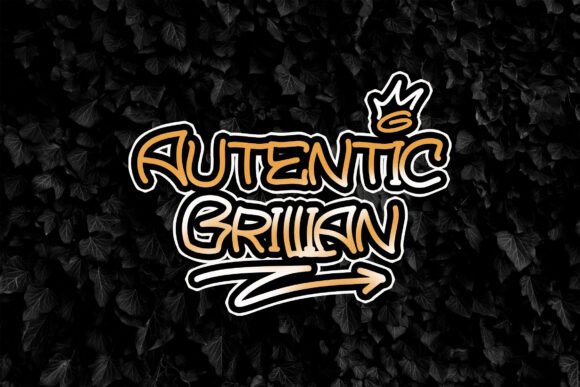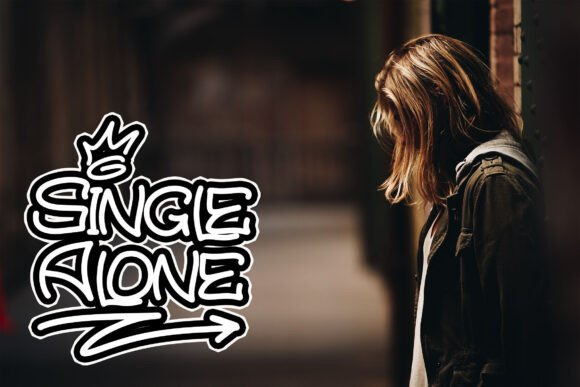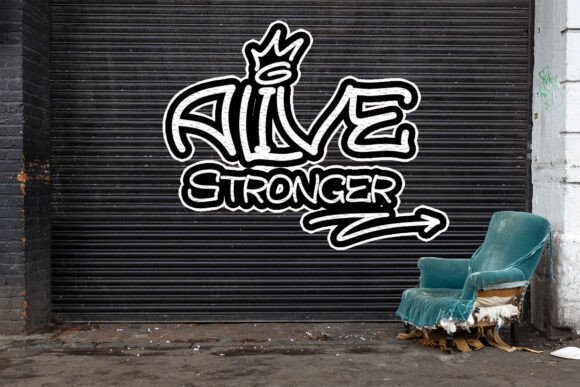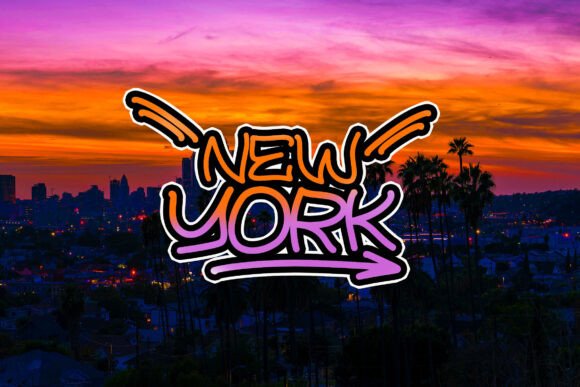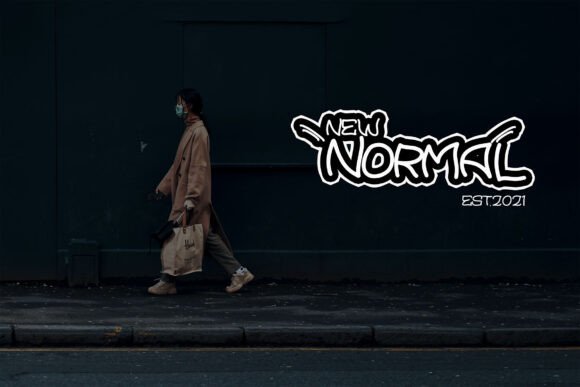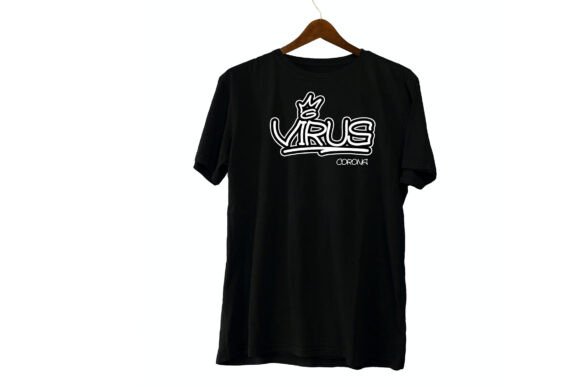
Introducing Amorad Font: The Ultimate Urban Edge for Your Designs
In the world of typography, fonts play a crucial role in conveying the tone and personality of a brand or design. For designers and crafters looking to add a fresh, urban edge to their work, Amorad Font is an excellent choice. This bold graffiti font boasts a natural hand brush style, making it perfect for creating eye-catching logos, streetwear, posters, and more.
What is Amorad Font?
AMORAD is a bold graffiti font designed to bring a raw, expressive energy to your designs. Its unique character shapes are inspired by the natural, hand-brushed style of graffiti art, giving it a distinctive and edgy look. Whether you’re working on a logo, poster, or streetwear design, Amorad Font is sure to make a statement.
Key Features of Amorad Font
• Bold and Graffiti-Inspired: Amorad Font is designed to be bold and attention-grabbing, making it perfect for designs that need to stand out.
• Natural Hand Brush Style: The font’s natural hand brush style gives it a unique, organic look that’s reminiscent of graffiti art.
• Unique Character Shapes: Each character in Amorad Font has been carefully crafted to bring a raw, expressive energy to your designs.
• Perfect for Urban Designs: Amorad Font is ideal for designs that need an urban edge, such as logos, streetwear, posters, and more.
Use Cases for Amorad Font
Amorad Font is versatile and can be used in a variety of design projects, including:
• Logos: Create a bold and eye-catching logo that makes a statement with Amorad Font.
• Streetwear: Add an urban edge to your streetwear designs with Amorad Font’s graffiti-inspired style.
• Posters: Create striking posters that grab attention with Amorad Font’s bold and expressive characters.
• Social Media Graphics: Use Amorad Font to add a creative and impactful look to your social media graphics.
Why Choose Amorad Font?
With so many fonts available, why choose Amorad Font? Here are just a few reasons:
• Unique Style: Amorad Font offers a unique and distinctive style that’s sure to set your designs apart.
• High-Quality Design: Each character in Amorad Font has been carefully crafted to ensure high-quality design and legibility.
• Creative Freedom: With Amorad Font, you have the creative freedom to experiment with different designs and styles.
Tips for Using Amorad Font
Here are some tips for getting the most out of Amorad Font:
• Experiment with Colors: Amorad Font looks great in bold, bright colors, so don’t be afraid to experiment.
• Mix and Match: Combine Amorad Font with other fonts to create a unique and eye-catching design.
• Play with Texture: Add texture to your design by combining Amorad Font with images or illustrations.
• Keep it Simple: Don’t overcomplicate your design – sometimes, less is more.
In conclusion, Amorad Font is an excellent choice for designers and crafters looking to add a fresh, urban edge to their designs. With its bold graffiti-inspired style, unique character shapes, and high-quality design, Amorad Font is perfect for a variety of design projects. Whether you’re working on a logo, poster, or streetwear design, Amorad Font is sure to make a statement.